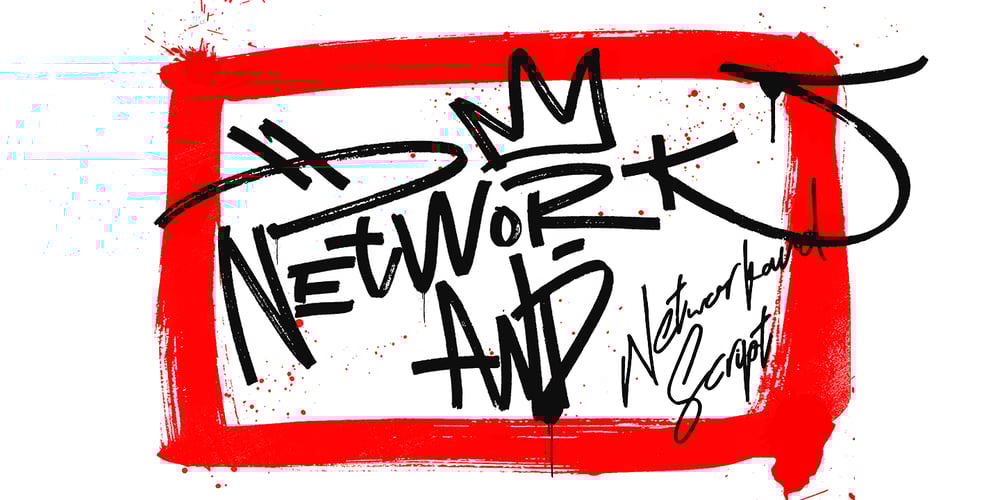
Networkand Family
Networkand Family font
Networkand Family Font Family was designed by Yasir Ekinci and published by yasireknc. Networkand Family contains 6 styles and family package options. DescriptionThis is Networkand Family. World’s best graffiti and non-graffiti marker-styled font ever. Networkand marker font family, carefully selected from hundreds of letters. Signature-styled Networkand Script perfectly fits next to the Networkand Font. Besides all this, the Networkand Swashes Font is designed to customize your designs to another level. You can read Medium article here.FEATURES:Original: Networkand Fonts and swashes created for your special designs. You can turn your dreams into reality and customize them.Unique Creation: An unprecedented experience a creation that no one has ever had before and will uncover your awareness.Create your Brand: Unlike a standard font to create a new brand concept. Be different in life. Your own.Create your own mark: That’s the most special part of this font. A brand new identity for your personal signatures.